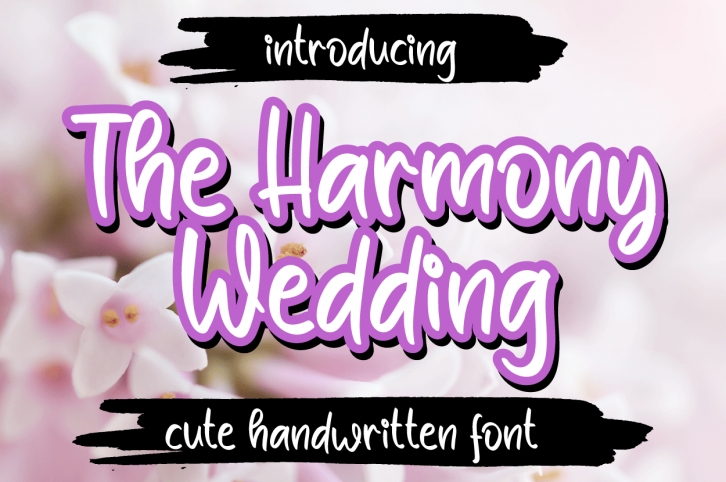
The Harmony wedding is a simple and interesting handwritten font. Its friendly feel makes this font incredibly versatile, fitting a wide range of contexts. It looks stunning on thank you cards, quotes, greeting cards, logos, business cards, and so much more!